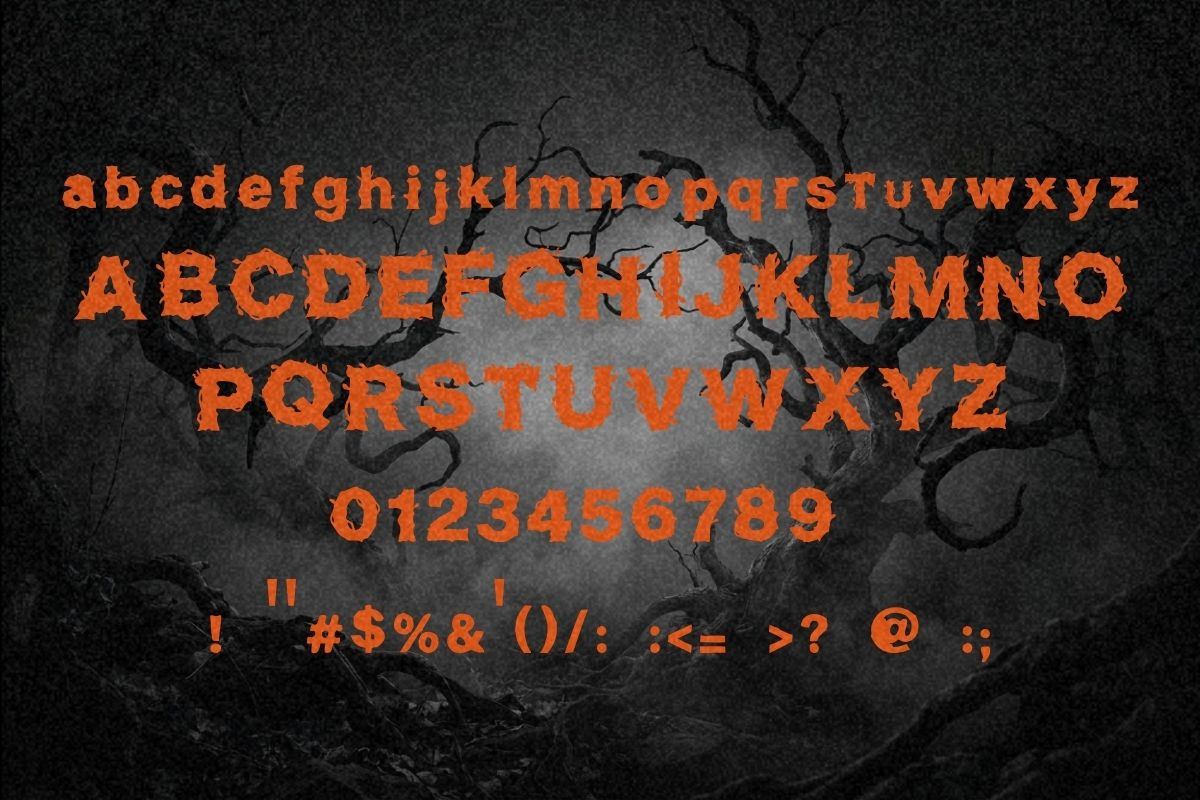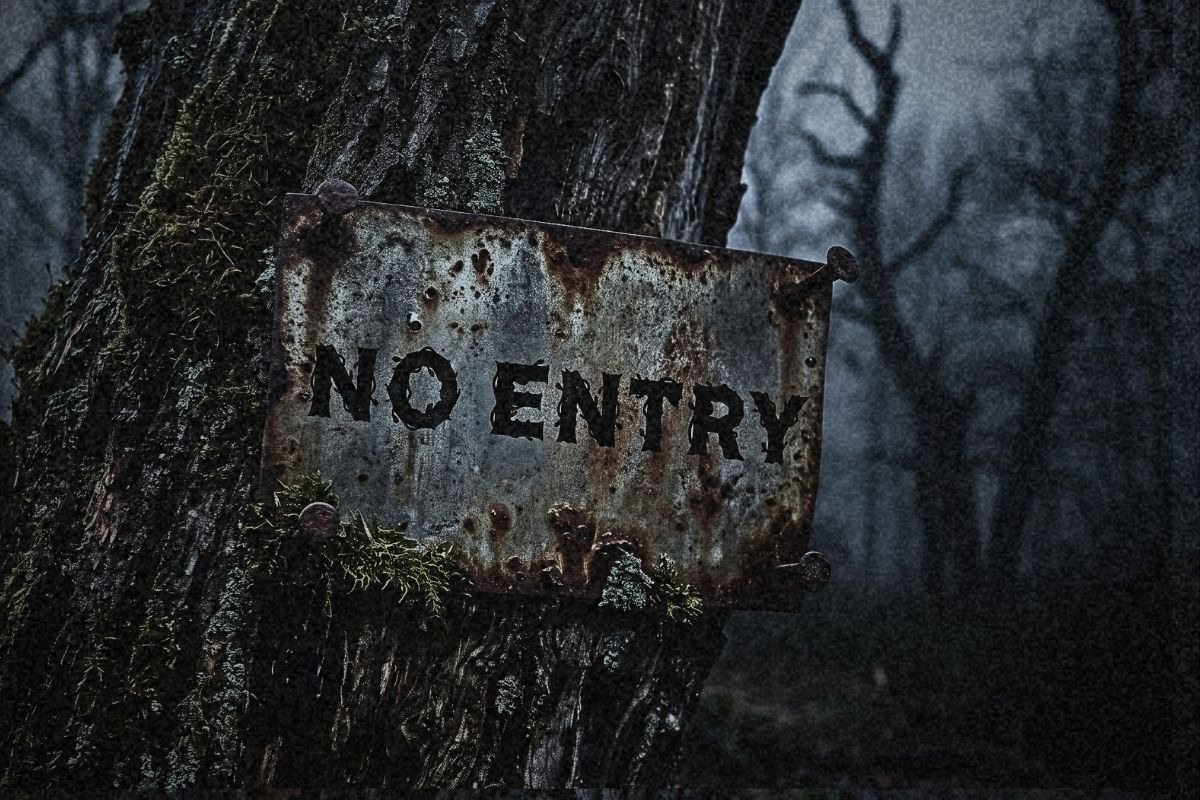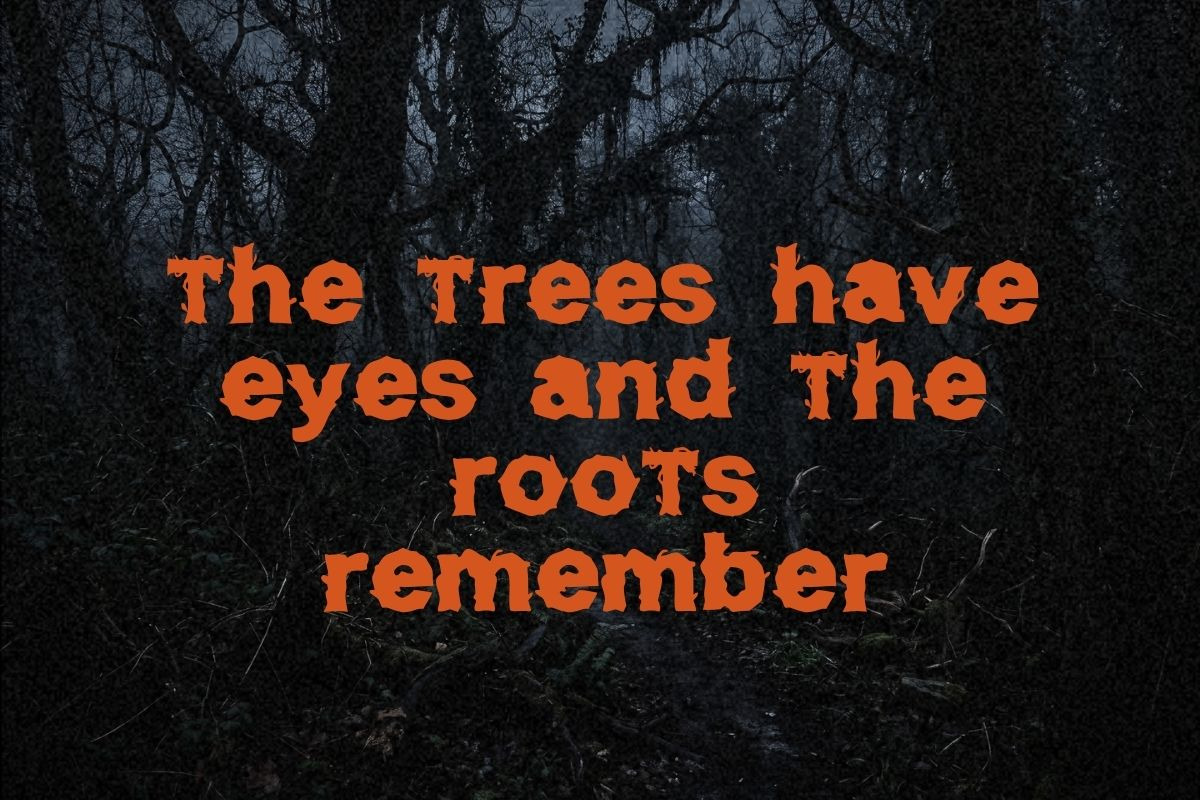
Thornbark Gothic Haunted Forest Disp
Introducing Thornbark Gothic — an organic, menacing Halloween display font carved straight from the heart of a cursed primeval forest. Every letterform is composed of twisted, ancient woodland bark trunks, piercing briar thorns, and sinister climbing vines that weave through the stems. Perfectly balanced between rugged nature and chilling gothic horror.
Why Designers Love This Font:
Authentic gnarled wood grain and thorny spur silhouettes that give every word organic dread and tactile depth.
Complete uppercase and lowercase families, including custom-calibrated lowercase 't' and 'u' perfectly matched to x-height and ascender baselines.
Restored master silhouettes for uppercase 'K' and 'W' with full towering trunks and expansive thorny branches.
Comprehensive 88-glyph repertoire covering A–Z, a–z, 0–9, and an extensive suite of 28 punctuation and symbol marks.
100% negative space verified — internal vine loops and leaf apertures are fully carved out, ensuring flawless plotter cutting.
Clean vectors with zero disconnected debris or raster artifacts, ready for professional large-scale sign painting, foil stamping, and digital screens.
Full Character Repertoire: 88 glyphs total
Uppercase Alphabet: A B C D E F G H I J K L M N O P Q R S T U V W X Y Z
Lowercase Alphabet: a b c d e f g h i j k l m n o p q r s t u v w x y z
Numerals: 0 1 2 3 4 5 6 7 8 9
Punctuation & Symbols: ! @ # $ % ^ & * ( ) - _ = + [ ] { } \ | ; : , . / < > ?